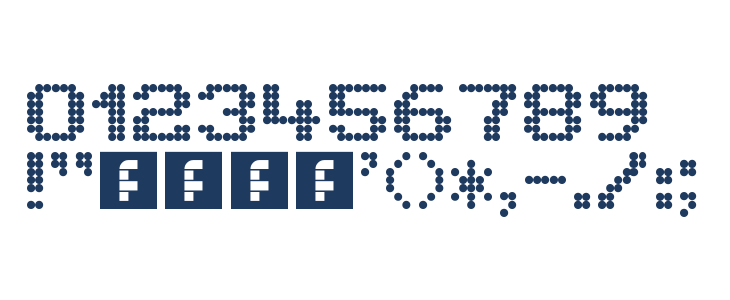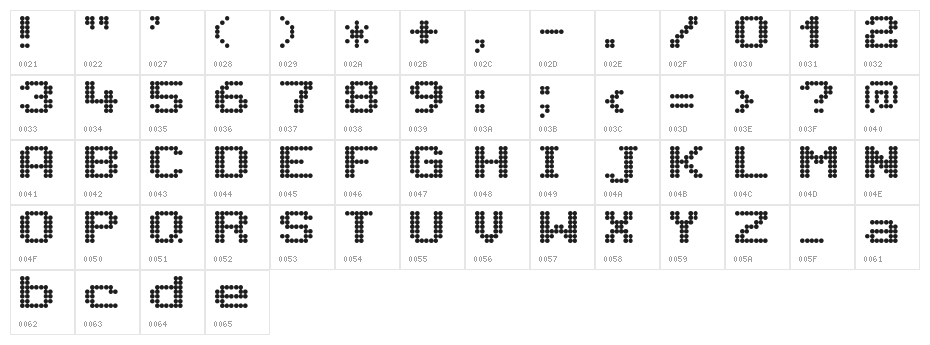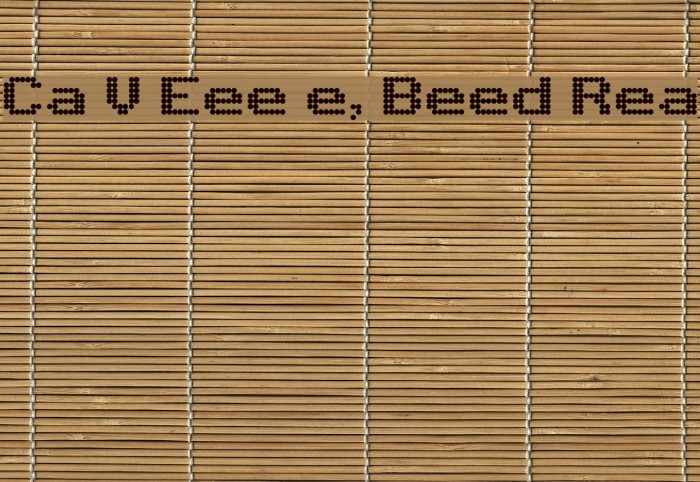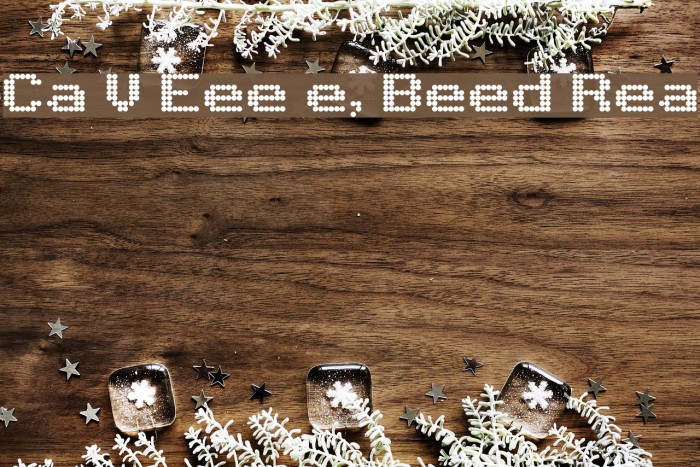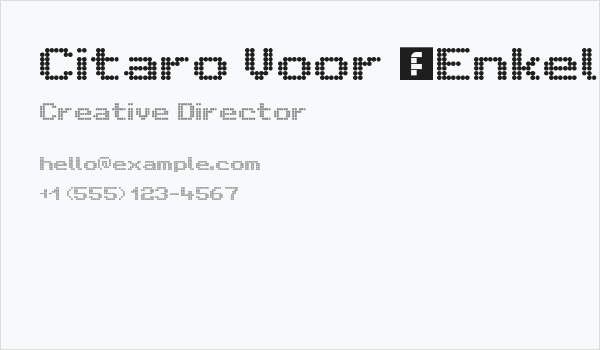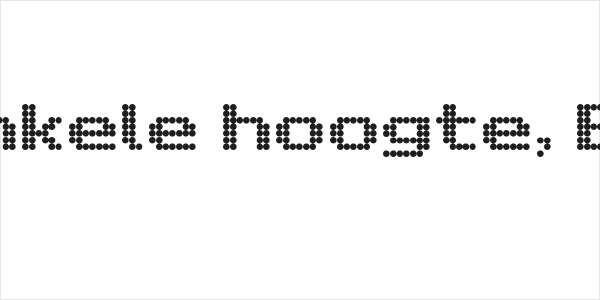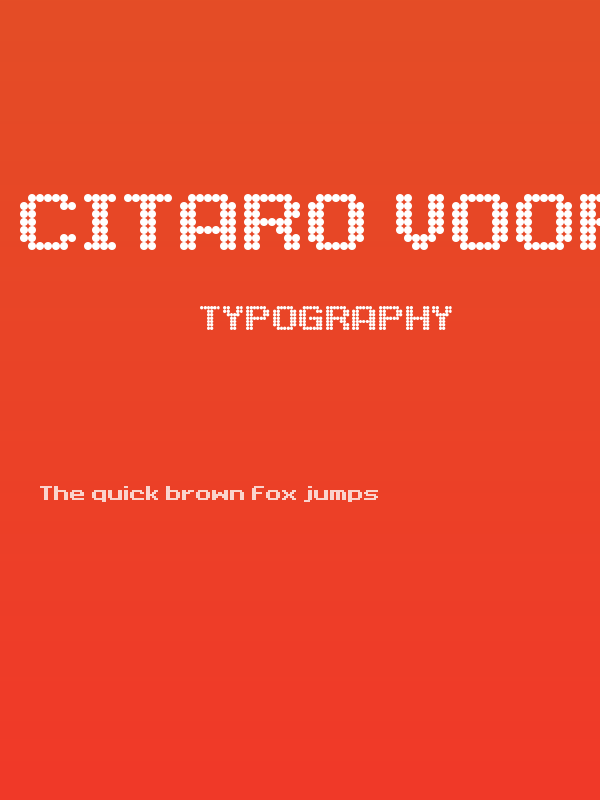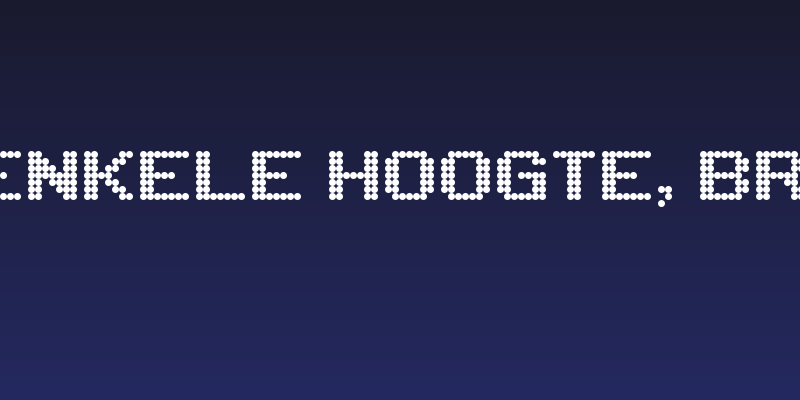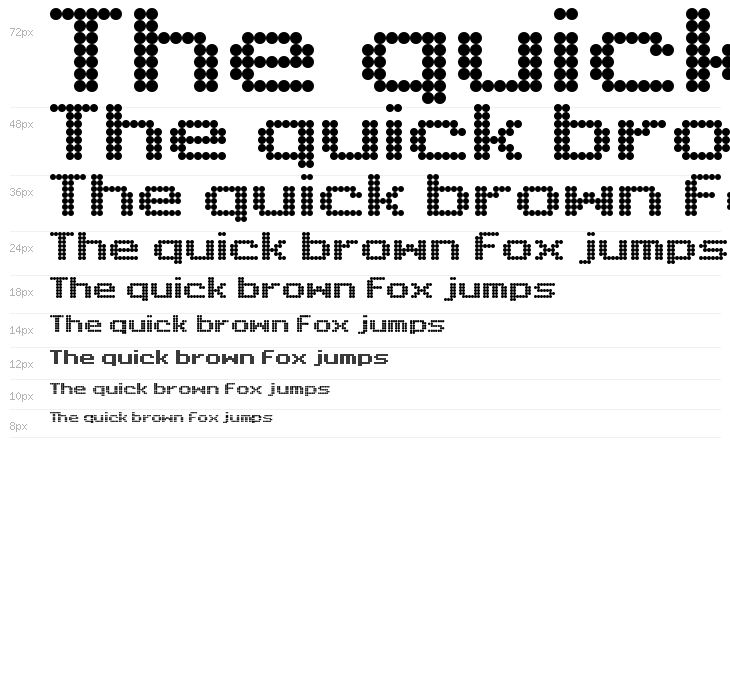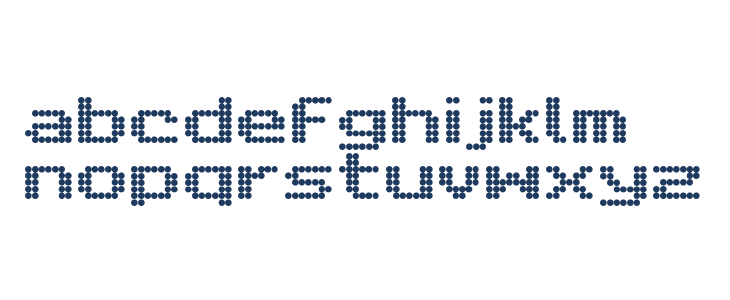
Citaro Voor [Enkele hoogte, Breed] Regular Font
Citaro Voor [Enkele hoogte, Breed] Regular Description
This font features a unique dot matrix style, where each character is composed of a grid of small, evenly spaced dots. The design is reminiscent of digital displays and retro technology, giving it a distinct, tech-inspired look. The uppercase and lowercase letters maintain a consistent structure, with rounded edges formed by the dots. Numbers and special characters follow the same pattern, ensuring uniformity across all glyphs. This font's playful yet structured appearance makes it suitable for projects that require a blend of modern and nostalgic elements.